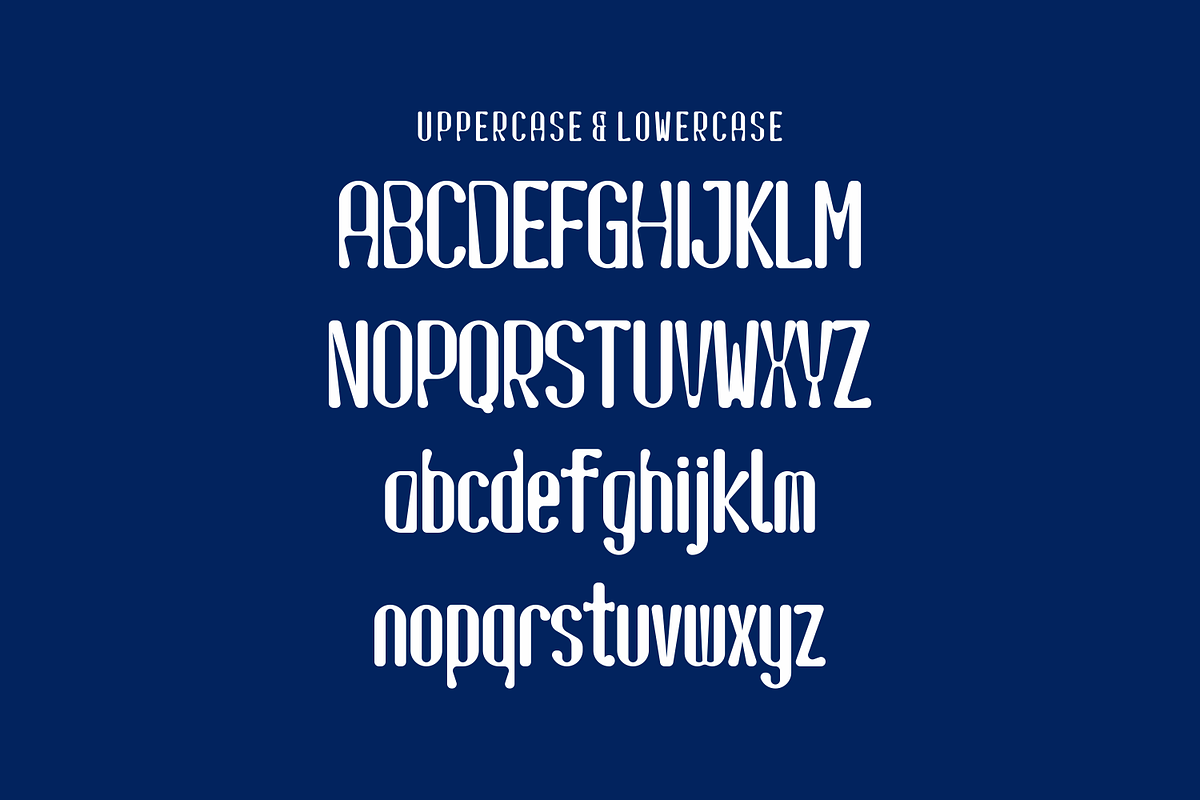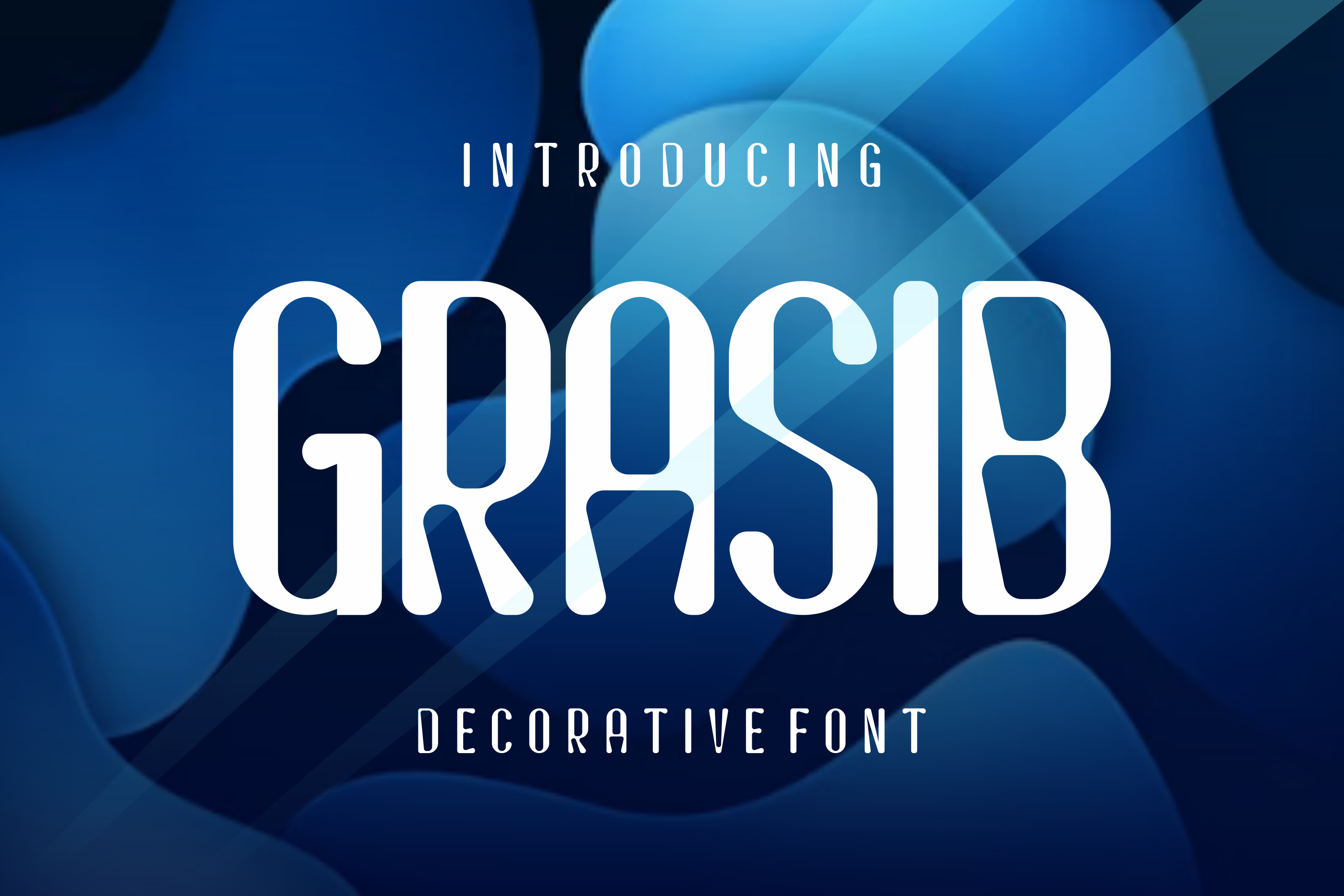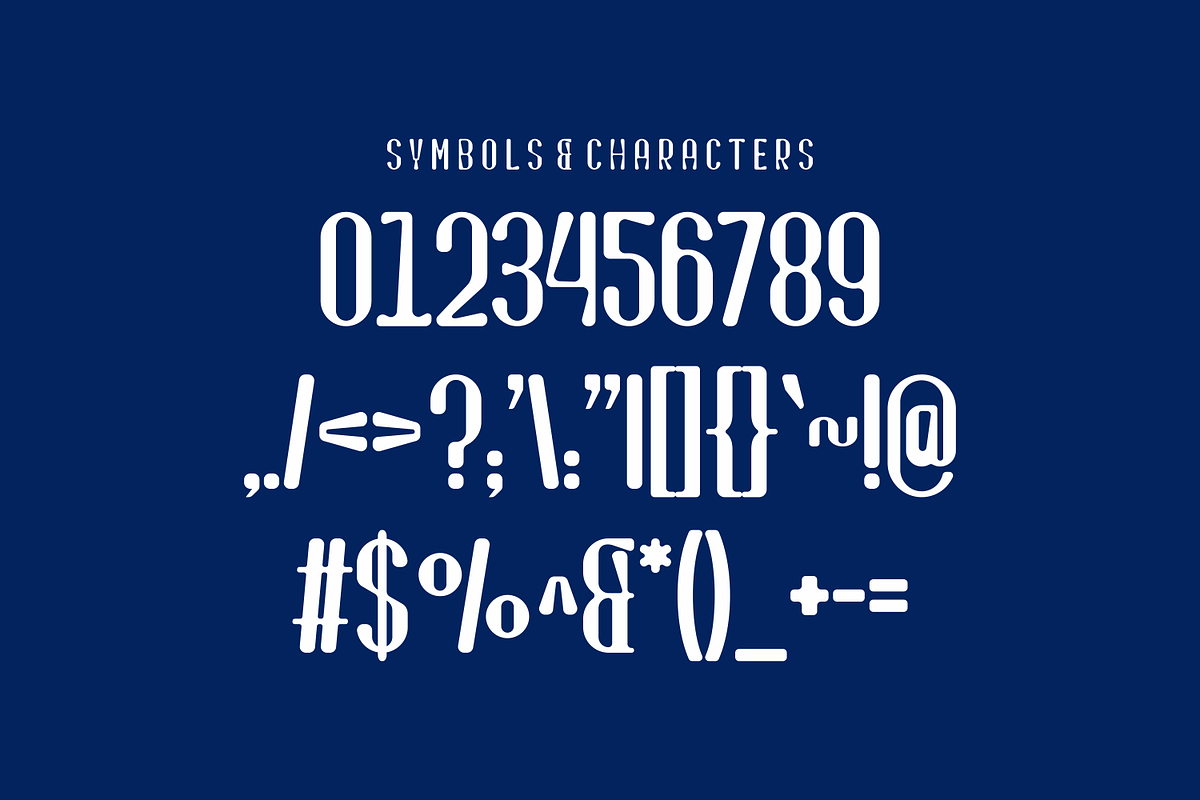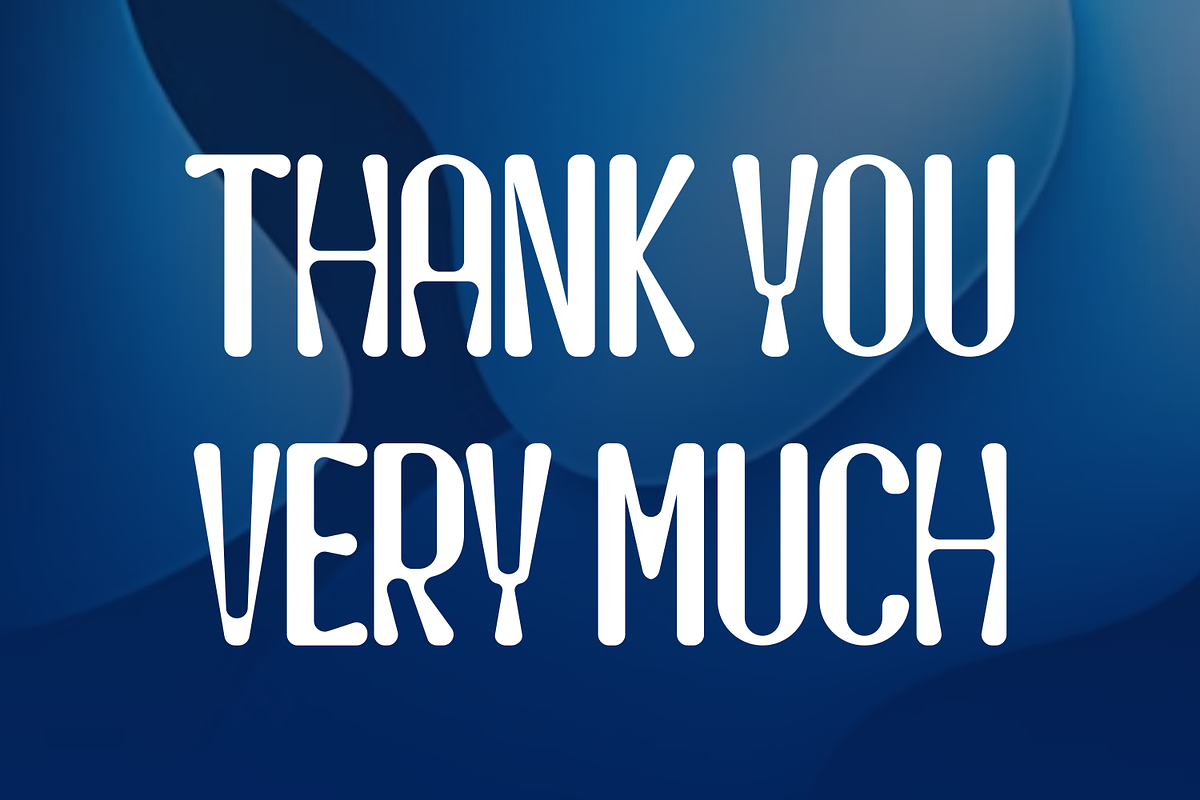
Grasib - Decorative Font
Grasib - Decorative Font Perfectly suited on print/screen. it’s perfect for Branding, name card, poster, logo, magazine, cover, banner, t-shirt and headers, or even large-scale artwork.